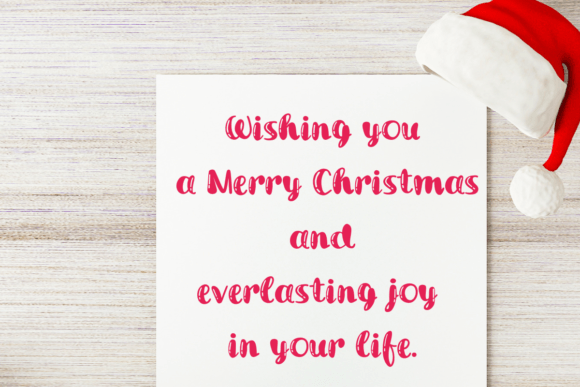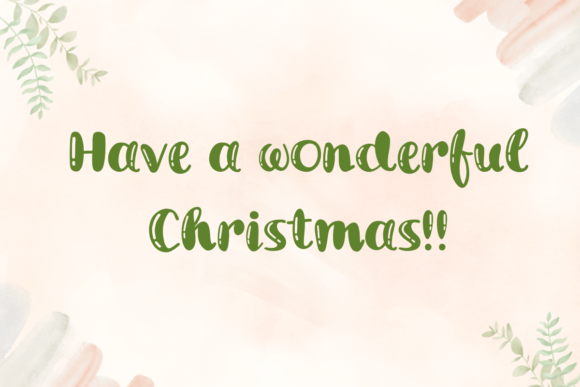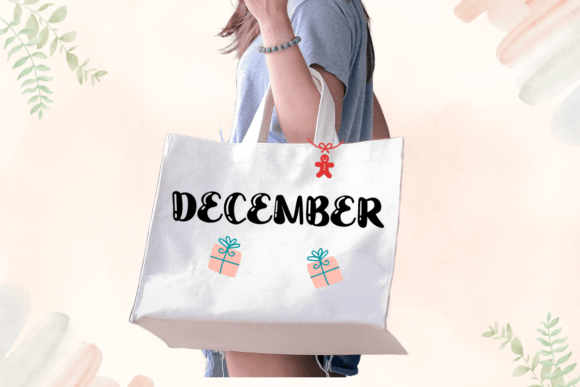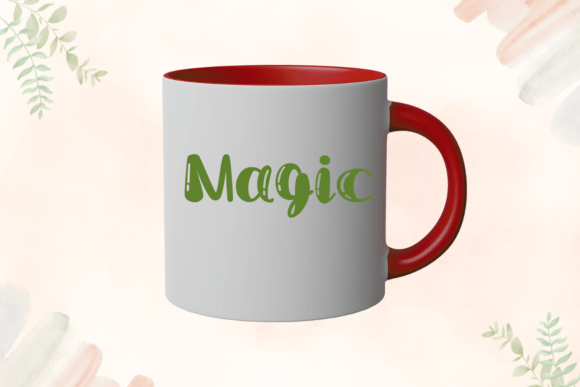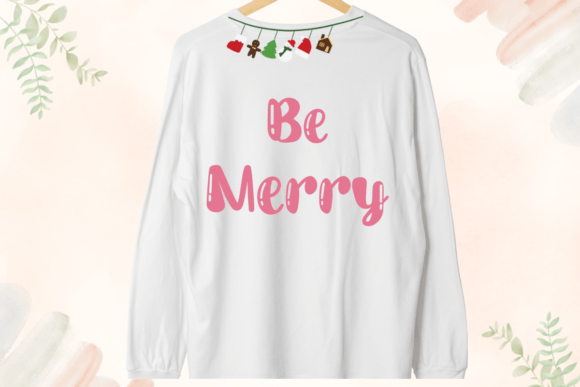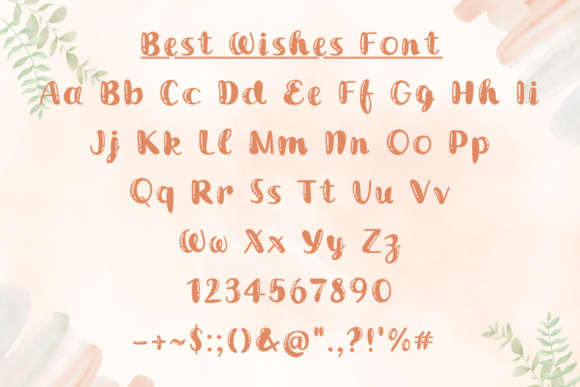
Discover the Charm of Best Wishes Font: Elevate Your Designs with a Playful Handwritten Touch
In the world of typography, fonts play a crucial role in conveying emotions and setting the tone for any design project. If you’re looking for a font that exudes warmth, friendliness, and a dash of whimsy, look no further than the Best Wishes font. This delightful handwritten font is perfect for designers and crafters seeking to add a personal touch to their creations, making it ideal for greeting cards, invitations, and various creative projects that celebrate special occasions.
The Unique Characteristics of Best Wishes Font
Best Wishes is a playful handwritten font that stands out for its charming and whimsical strokes. With a hint of informality, it brings a sense of approachability and warmth to any design. The font’s unique characteristics include:
• Whimsical Strokes: The font features playful strokes that give it a lively and energetic feel, perfect for designs that require a touch of personality.
• Handwritten Charm: Best Wishes boasts a genuine handwritten look, making it ideal for projects that require a personal and friendly touch.
• Informal Elegance: Despite its playful nature, the font maintains a level of elegance, making it suitable for a wide range of design applications.
Ideal Applications for Best Wishes Font
The versatility of Best Wishes font makes it perfect for various design projects, including:
• Greeting Cards: Add a warm and friendly touch to your greeting cards, making them perfect for special occasions like birthdays, weddings, and holidays.
• Invitations: Create beautiful and inviting invitations for parties, events, and celebrations that will surely impress your guests.
• Creative Projects: Use Best Wishes font to add a personal touch to your creative projects, such as scrapbooking, journaling, and DIY crafts.
Tips for Using Best Wishes Font Effectively
To make the most of Best Wishes font, consider the following tips:
• Pair with Complementary Fonts: Combine Best Wishes font with clean and simple fonts to create a striking contrast and add visual interest to your design.
• Experiment with Colors: Play with different colors to find the perfect match for your design, taking into account the font’s playful and whimsical nature.
• Add Decorative Elements: Enhance your design with decorative elements, such as illustrations or graphics, to further emphasize the font’s charm and personality.
Why Choose Best Wishes Font?
Best Wishes font offers a unique combination of playfulness, charm, and elegance, making it an excellent choice for designers and crafters seeking to add a personal touch to their creations. With its:
• Easy Readability: The font is clear and easy to read, ensuring that your message is conveyed effectively.
• Flexibility: Best Wishes font can be used for a wide range of design applications, from digital projects to print materials.
• Emotional Connection: The font’s warm and friendly nature helps create an emotional connection with your audience, making your design more impactful and memorable.
In conclusion, Best Wishes font is a delightful handwritten font that can elevate your designs with its playful and charming touch. Whether you’re a designer or crafter, this font is perfect for adding a warm and friendly feel to your creations, making it ideal for greeting cards, invitations, and various creative projects. So, why not give Best Wishes font a try and discover the magic it can bring to your designs?